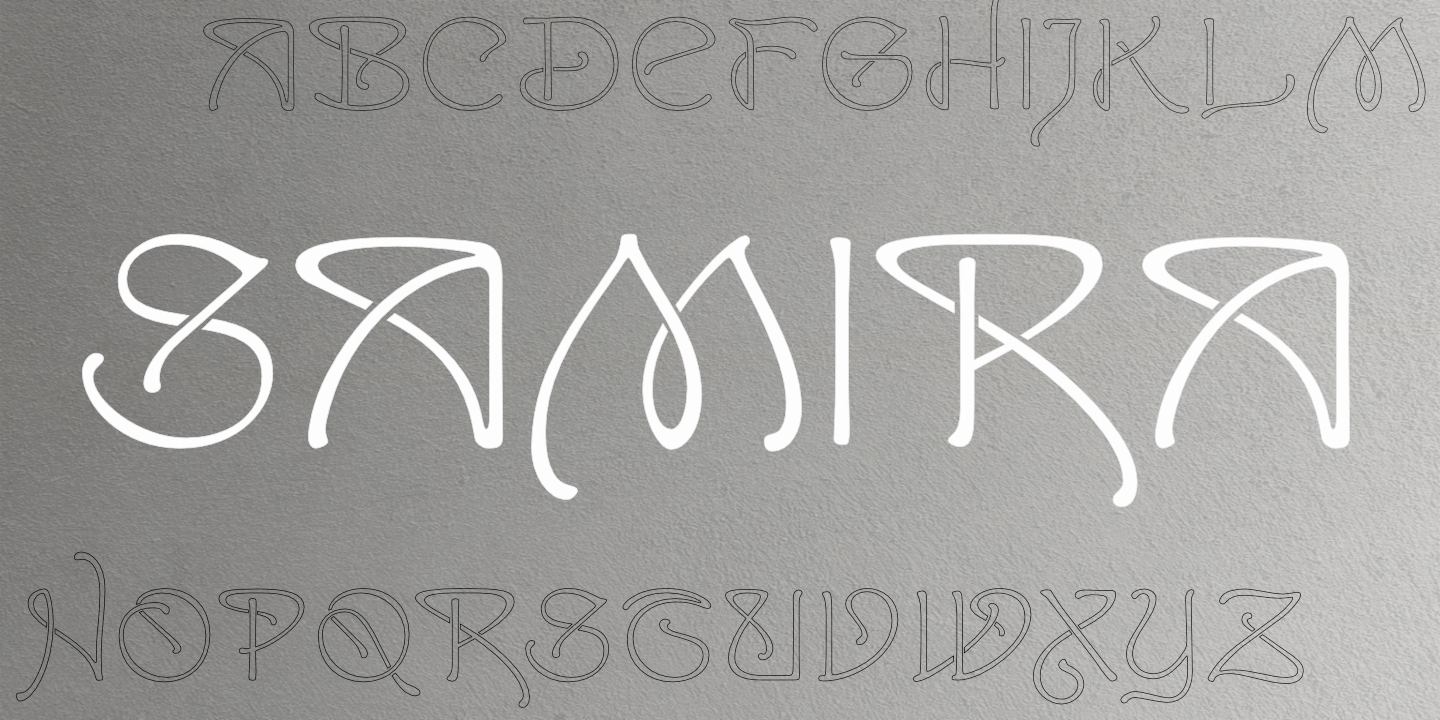
Samira: Basic Latin alphabet. See Glyphs for details. blank
Numerals, Punctuation, etc.
Samira: Numerals, basic punctuation, ligatures, and currency symbols.
Samira supports many Western European languages.
Stacked Text
Notice that light text on a dark background appears slightly heavier than dark text on a light background. blank
Roses
Samira gradient